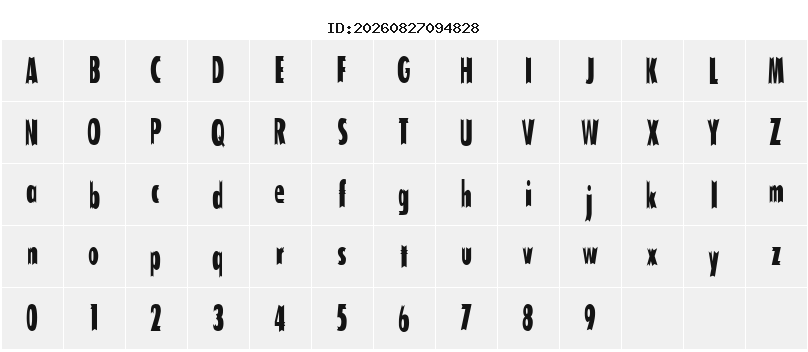
• Font Name: 343-CAI978
• Full Font Name: 343-CAI978
• Version: Version 1.00 March 1, 1930, initial release
About 343-CAI978.ttf
343-CAI978.ttf is a modern, elegant sans-serif font designed for ultimate readability and visual harmony. Perfect for branding, headlines, web design, and print materials.